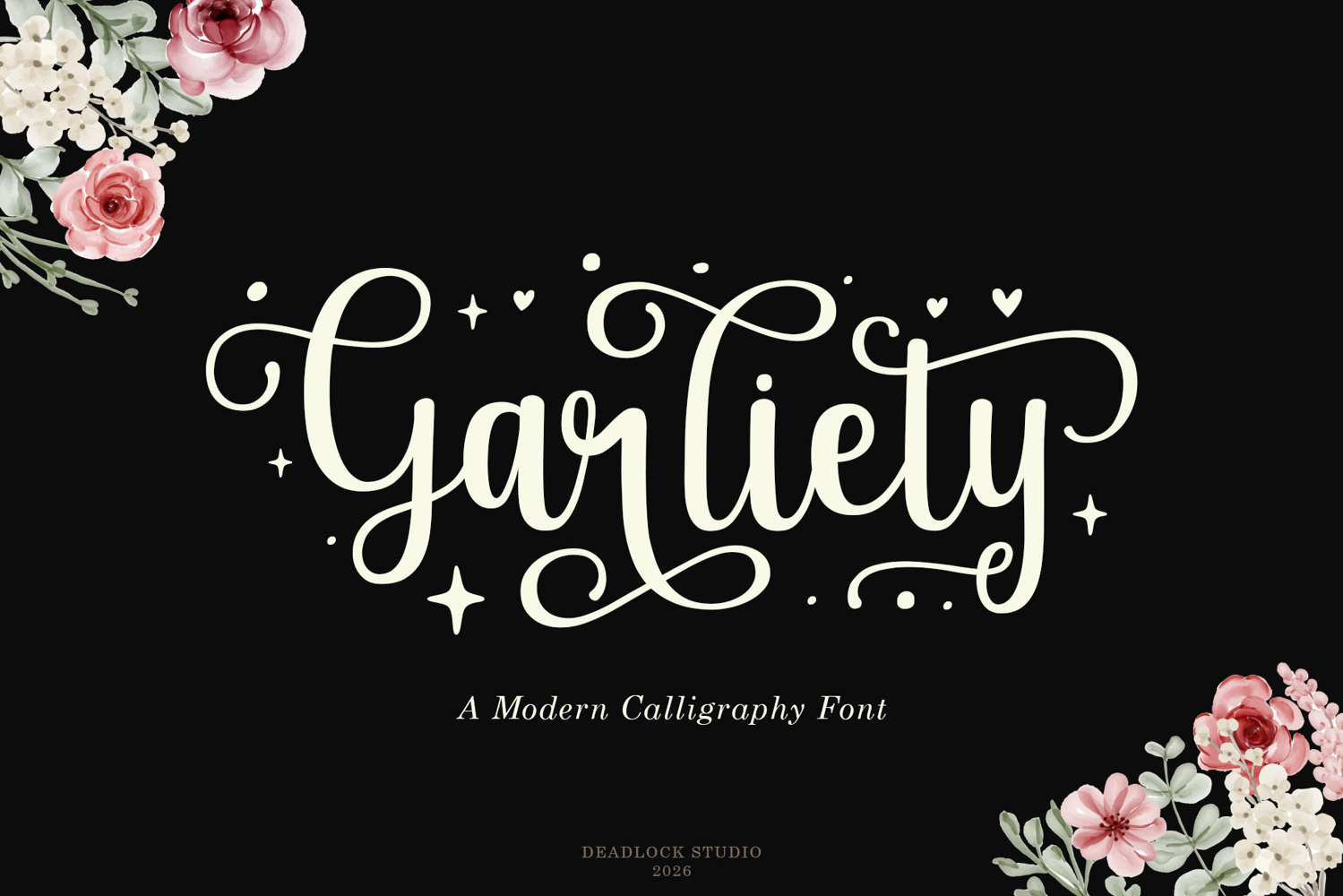
Elevate your designs with Garliety, a contemporary modern script font that blends elegance with fluid typography. Perfect for branding, wedding invitations, social media graphics, and luxury packaging.
Modern Script Style: Clean, elegant, and perfectly balanced strokes.
Stylistic Sets (SS01 - SS06): Diverse alternate characters to customize your letterforms.
Ligatures: Seamless letter connections for a authentic, hand-written feel.